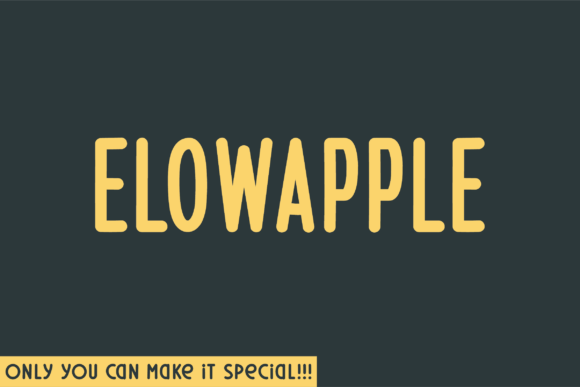
Discovering Hidden Gems: The Story Behind Elowapple Font
Have you ever found yourself scribbling down quotes or ideas in a notebook, only to discover that the messy handwriting adds character to the words? For designers, this organic feel can be a goldmine. It’s in these moments of imperfection that we find the beauty of handwritten fonts.
| 📌 Product Name | Elowapple Font |
| 👤 Author | Hanna Bie |
Introducing the Elowapple Font, a natural handwritten font that captures the essence of handwritten notes. With its unique, unaltered characters, this font is perfect for adding a personal touch to quotes, notes, tees, and product designs. What makes Elowapple Font truly valuable is its authenticity – it’s not a perfect, polished font, but a genuine representation of human handwriting.
Key Features of Elowapple Font
- Unique Characteristics: Elowapple Font features a unique blend of modern and vintage elements, with a distinctive aesthetic that is both elegant and playful
Elowapple Font Review
As a designer, I’ve had the chance to work with Elowapple Font, and I’m excited to share my honest review.
- The Elowapple Font has a beautiful, unique design that sets it apart from other fonts. Its elegant and refined aesthetic makes it perfect for high-end branding and luxury designs.
- The font’s versatility is impressive, working well for both digital and print media. It’s a great choice for creating a cohesive brand identity across various platforms.
- Elowapple Font’s extensive character set and language support make it a great option for global brands and organizations.
- The font’s intricate design can make it difficult to read at smaller font sizes. It’s essential to test the font in different contexts to ensure it’s legible.
- The font’s unique design might not be suitable for all types of projects, particularly those requiring a more playful or casual tone.
Overall, I think Elowapple Font is a great choice for designers looking to create sophisticated and refined designs. While it may have some limitations, its unique design and versatility make it a valuable addition to any font collection.
Tips for Getting the Most Out of Elowapple Font
For the best results, pair Elowapple Font with a simple color scheme and clean design. Use it for headings, titles, or short paragraphs to add a touch of elegance to your designs.
Elowapple Font is ideal for:
– Digital invitations and event materials
– Editorial and publishing projects
– Fashion and lifestyle designs
Alternatives to Elowapple Font
Montserrat is a modern sans-serif font designed for digital use. It’s highly legible and versatile, making it suitable for a wide range of applications, from body text to display headlines. Montserrat is a popular choice for designers who want a clean and elegant look.
Compared to Elowapple Font, Montserrat is more modern and minimalist, with a focus on clean lines and geometric shapes. While Elowapple Font has a more vintage feel, Montserrat is ideal for modern and tech-related designs.
Playfair Display is a luxurious and elegant script font, perfect for adding a touch of sophistication to your designs. It’s ideal for use in titles, headings, and other display elements where you want to make a statement.
Compared to Elowapple Font, Playfair Display is more ornate and decorative, with a focus on beautiful letterforms and flourishes. While Elowapple Font is more versatile and legible, Playfair Display is better suited for high-end and luxury designs.
Lato is a clean and modern sans-serif font, designed to be highly legible and versatile. It’s suitable for use in body text, headings, and titles, and is a popular choice for designers who want a simple and elegant look.
Compared to Elowapple Font, Lato is more minimalist and understated, with a focus on clean lines and simplicity. While Elowapple Font has a more vintage feel, Lato is ideal for modern and minimalist designs.
Merriweather is a classic serif font, designed to evoke a sense of tradition and elegance. It’s ideal for use in body text and headings,
What is the recommended font size for optimal readability with the Elowapple Font?
The recommended font size for optimal readability with the Elowapple Font is between 12pt and 24pt. However, this may vary depending on the specific application, screen resolution, and design context. It’s always a good idea to test the font at different sizes to ensure optimal readability and legibility.